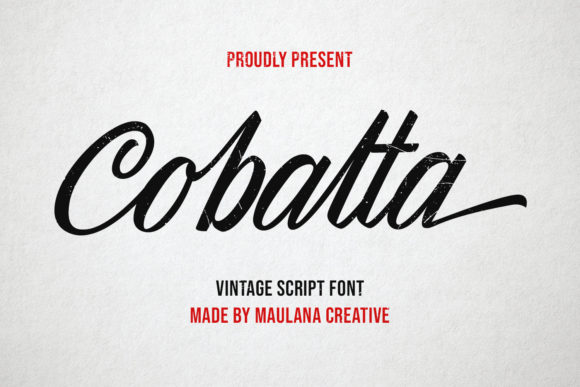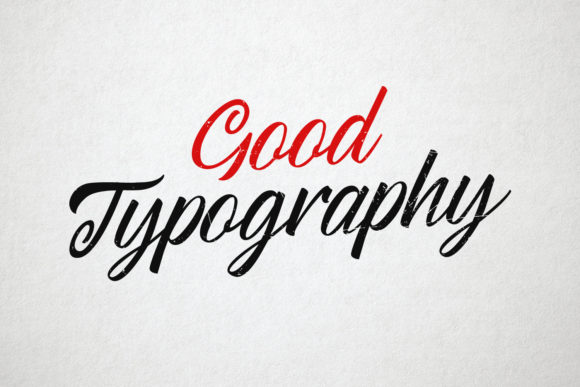
About Cobalta Font
Cobalta is not just an ordinary script font; it’s a remarkable fusion of exquisite detail and authentic handcrafted feel, ensuring it leaves an indelible imprint wherever used. This distinct font is a matchless tool for injecting a vintage touch into your next project, enhancing its appeal and making it truly memorable.
Drawing its inspiration from a bygone era, Cobalta is an unforgettable script font that encapsulates the authentic essence of handcrafted typography. Each character in this font carries a unique story, beautifully narrated through intricately detailed strokes that exude an aura of vintage charm. Its masterful design exudes an old-world elegance that instantly transports the audience to a nostalgic past, fostering a deep emotional connection that’s hard to overlook.
One of the standout features of Cobalta is its unparalleled versatility. Whether it’s a creative logo design, a promotional poster, a catchy website header, or an engaging social media post, Cobalta perfectly complements your design, infusing it with a touch of vintage flair. Its detailed characters enhance the visual appeal of your content, while the authentic handcrafted feel adds a layer of depth that enriches the overall aesthetic experience.
For businesses seeking to create a distinct identity in a crowded marketplace, Cobalta offers an exceptional advantage. Logos designed with this font carry a unique appeal, setting the brand apart and creating an instant recall value. The vintage charm of Cobalta evokes a sense of trust and reliability, vital traits that potential customers look for in a brand.
In the realm of web design, Cobalta is a priceless asset. It adds an intriguing visual element to your digital platform, ensuring visitors’ interest is piqued the moment they land on your website. The font’s unique design makes your web content pop, effectively increasing user engagement and enhancing user experience.
In the world of print media, Cobalta’s impact is profound. Be it a magazine cover, a book title, or a marketing brochure, this font ensures your print material stands out. Its vintage allure and detailed characters captivate the readers’ attention, encouraging them to engage with your content.
Even in the sphere of personal projects, Cobalta finds its rightful place. From wedding invitations to personalized gifts, this font adds a special touch that instantly elevates the design. The handcrafted feel it carries adds a personal element to the project, making it all the more special.
In essence, Cobalta is more than just a script font. It’s a tool that allows you to weave a rich tapestry of vintage aesthetics and intricate details into your designs. It empowers you to create projects that are not just visually impressive, but also emotionally resonant. With its beautiful characters and authentic handcrafted feel, Cobalta is indeed the perfect font to bring your next project to life, making it not just memorable, but absolutely unforgettable.